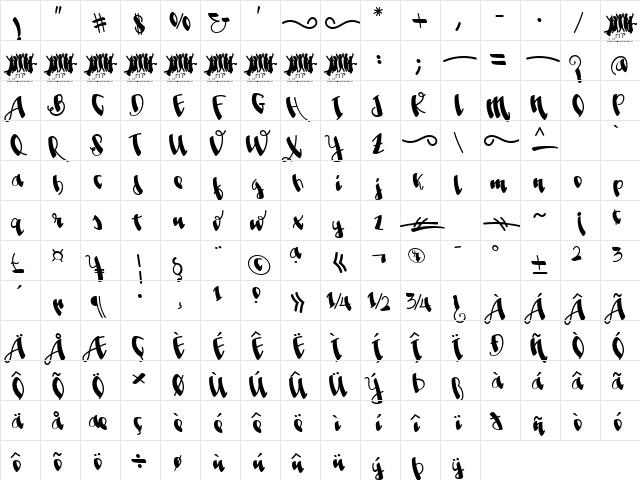
Jolgoria in Town FFP
| Foundry | Fernando Haro |
| Designer | deFharo |
Design Context for Jolgoria in Town Typeface
Jolgoria in Town is a composed and adaptable typeface that performs quietly and consistently across a wide range of design contexts.